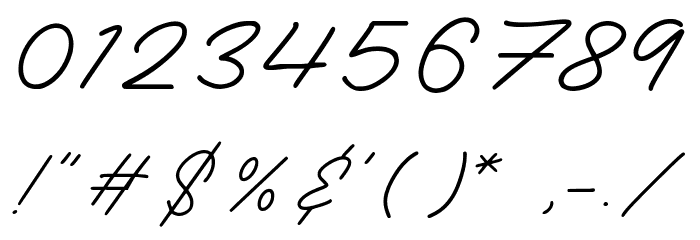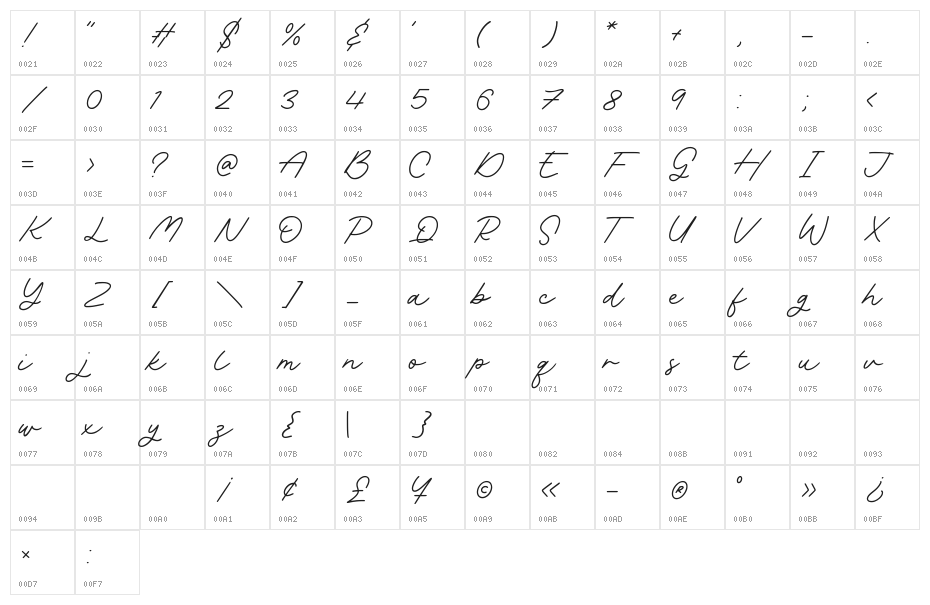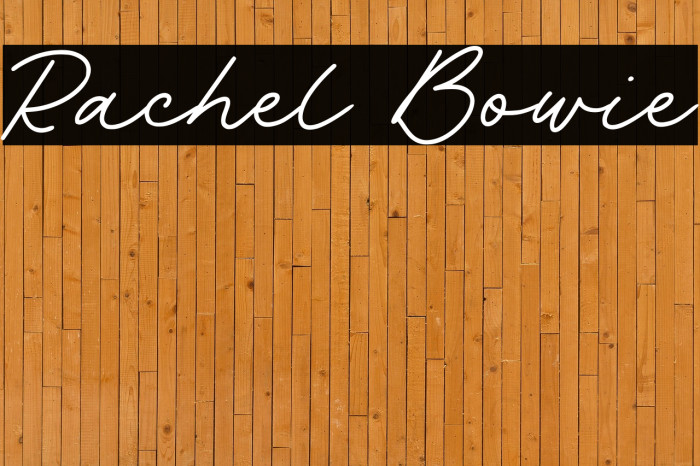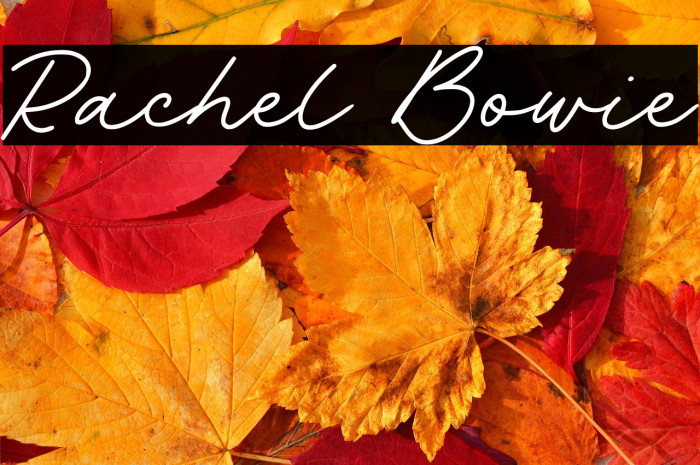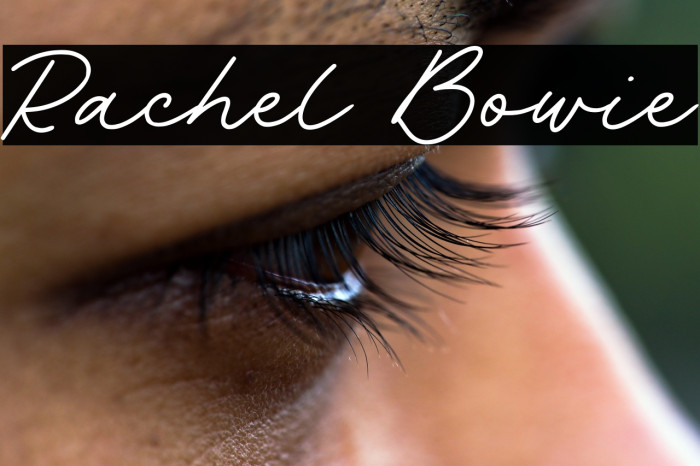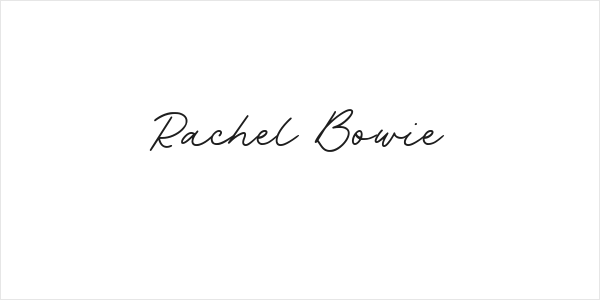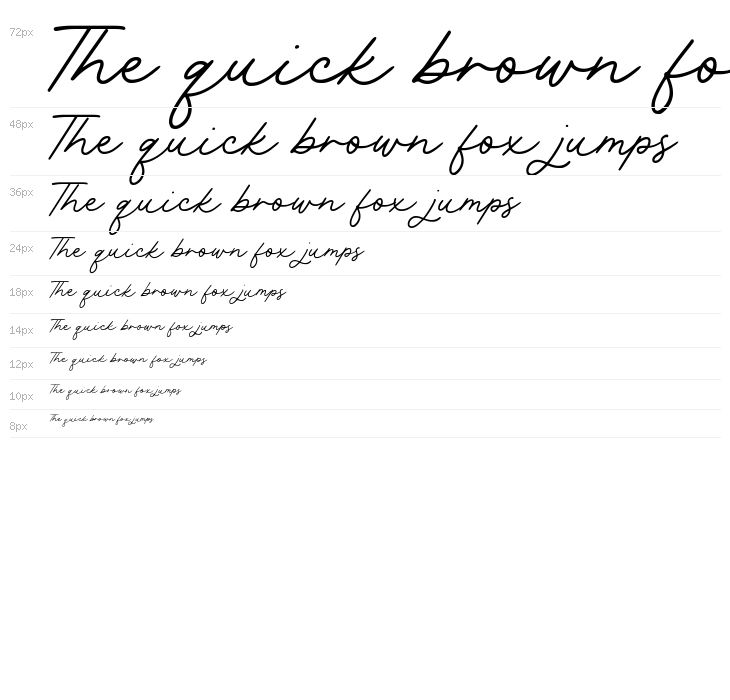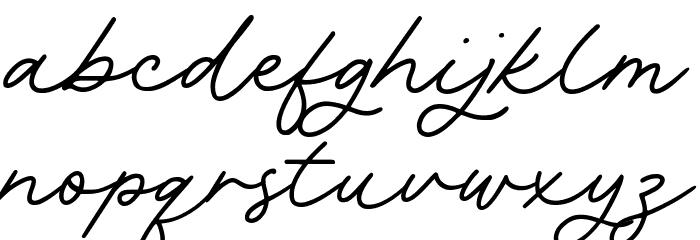
Rachel Bowie Font
Rachel Bowie Description
This elegant script font features a smooth, flowing style that mimics natural handwriting. The characters are connected, creating a seamless and fluid appearance. The uppercase letters are slightly more structured, while the lowercase letters exhibit a more relaxed, cursive form. The numbers and special characters maintain the same fluidity, ensuring consistency throughout the typeface. The font's strokes are moderately thick, providing a balanced contrast that enhances readability while maintaining its decorative appeal. This font exudes a sense of sophistication and grace, making it suitable for a variety of creative applications.
| Use Case | Logos, Invitations, Personal stationery |
| Proposed Projects | Ideal for wedding invitations, greeting cards, elegant branding, and personal stationery. |